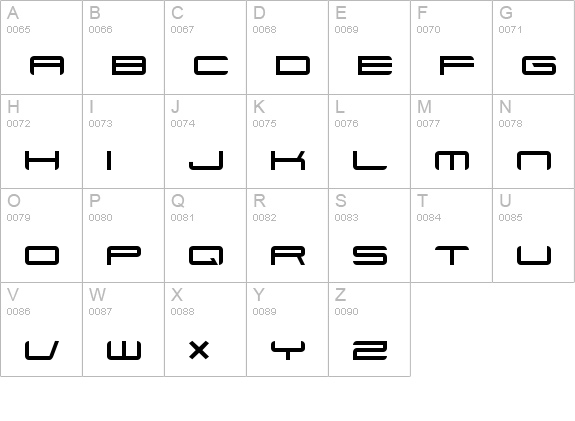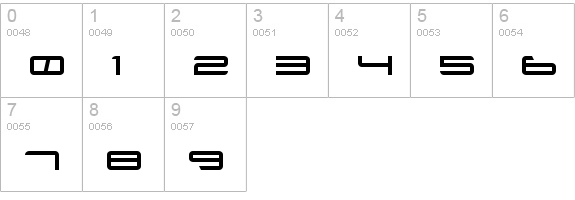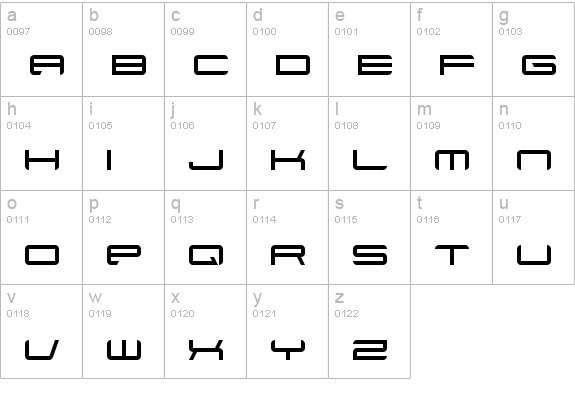
Xenotron Font Details
Introducing Xenotron font, a modern and stylish typeface perfect for a wide range of design projects. With its sleek lines and contemporary feel, Xenotron is sure to make your text stand out. This versatile font is ideal for logos, branding, posters, social media graphics, and more. What sets Xenotron font apart is not only its unique design, but also the fact that it is completely free to download. That's right - you can get your hands on this stunning font at no cost from FontsMarket.com. Whether you're a professional designer or a hobbyist looking to add a fresh touch to your creations, Xenotron is the perfect choice. Don't miss out on the opportunity to enhance your designs with Xenotron font. Download it today and let your creativity soar!